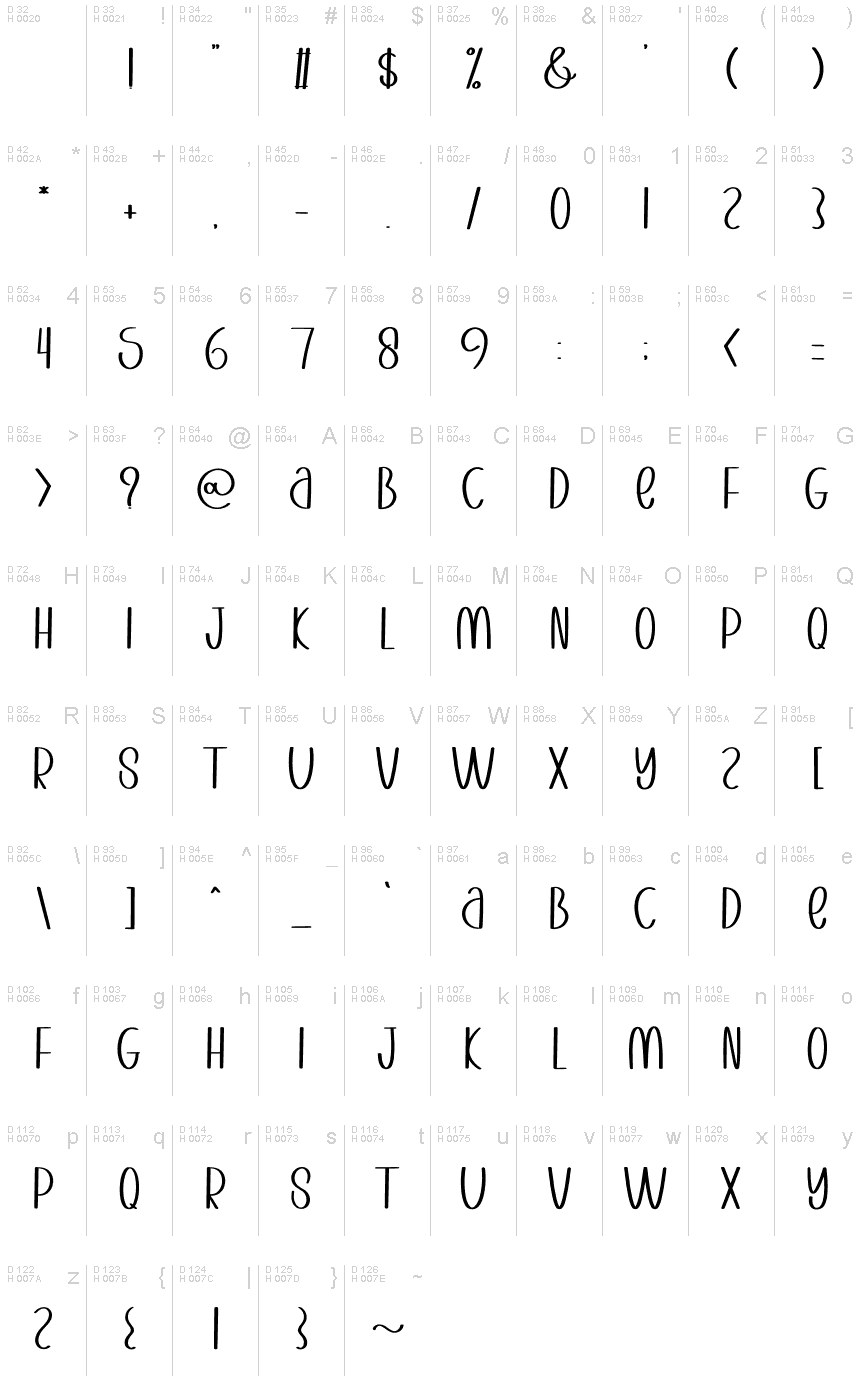
Sweet Honey
Sweet Honey, a stunning creation by font designer Kateeng Ciu, is the epitome of contemporary elegance. With its exquisite handwritten style and semi-light weight, this font exudes sophistication and charm. The semi-condensed width adds a touch of uniqueness, making it perfect for a variety of projects.
Whether you're designing letterheads for corporate branding or crafting eye-catching titles for advertisements, Sweet Honey will bring your ideas to life. Its versatility knows no bounds - from elegant wedding invitations to chic stationery, this font is sure to leave a lasting impression.
Let your creativity soar with Sweet Honey and make every project shine with class and style.